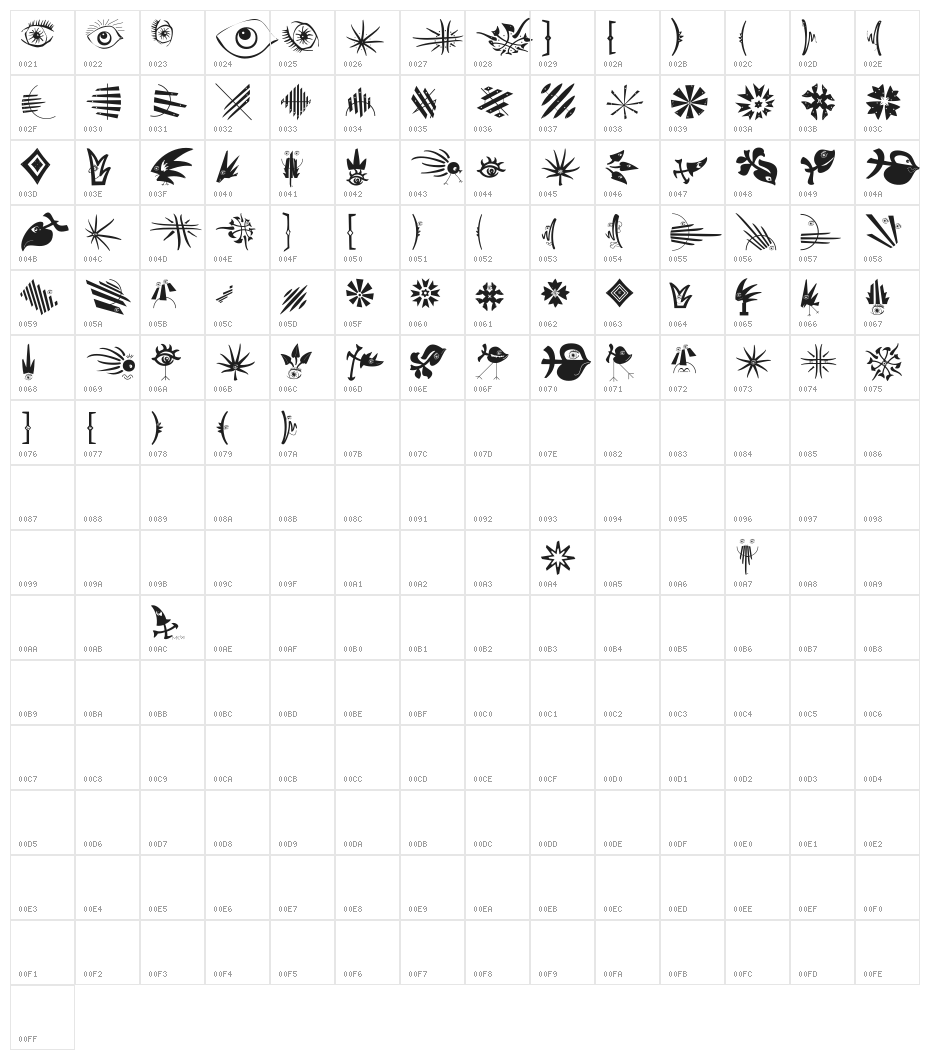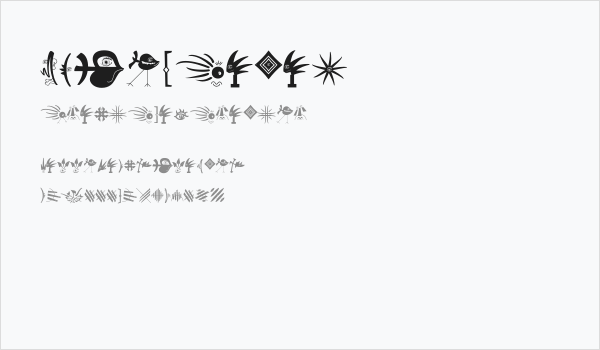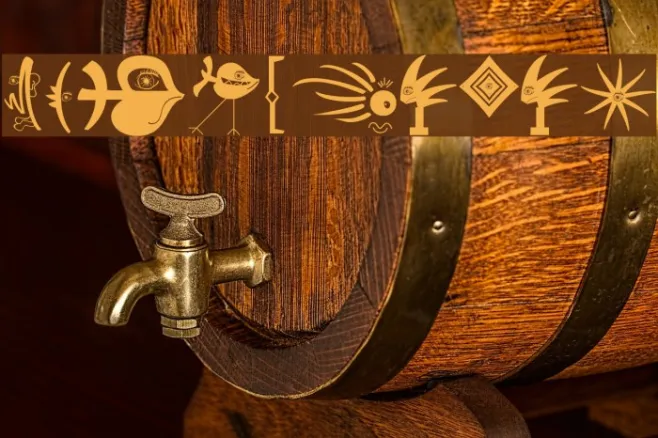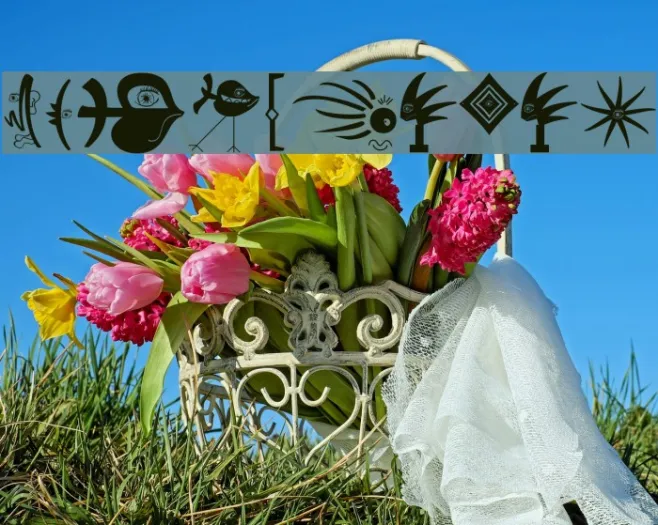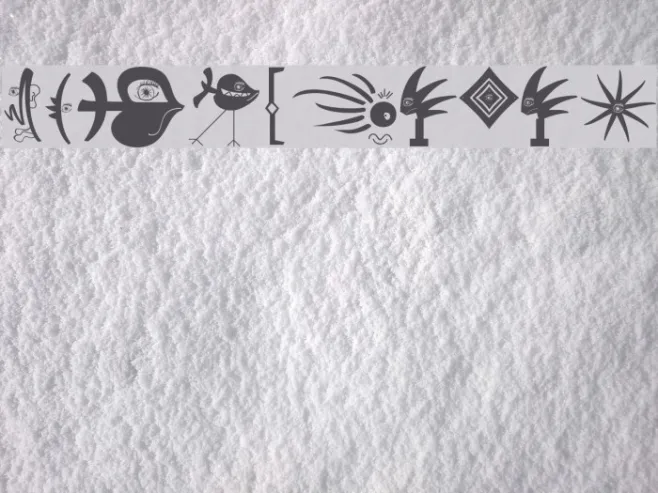
TypoPieces Font
TypoPieces Description
A highly decorative and abstract dingbat font featuring whimsical illustrations such as eyes, birds, geometric shapes, and organic motifs. Each glyph is a unique pictogram rather than a traditional letterform, with bold, playful, and surreal visual elements.
| Overall Style | Decorative, Surreal, Playful, Artistic |
| Use Case | Logos, Posters, Artistic projects, Visual accents |
| Proposed Projects | Posters, album covers, art projects, branding for creative industries, decorative dividers, visual puzzles. |